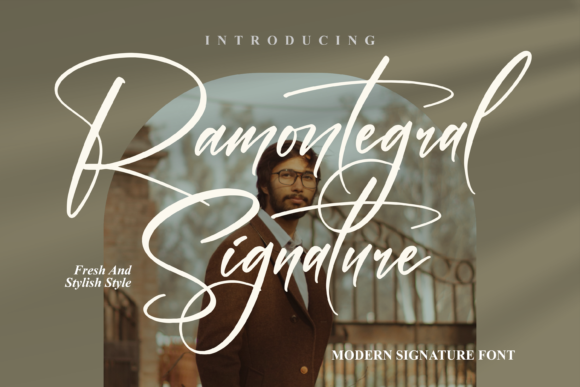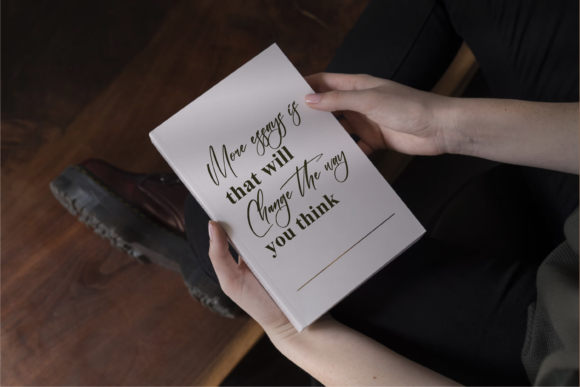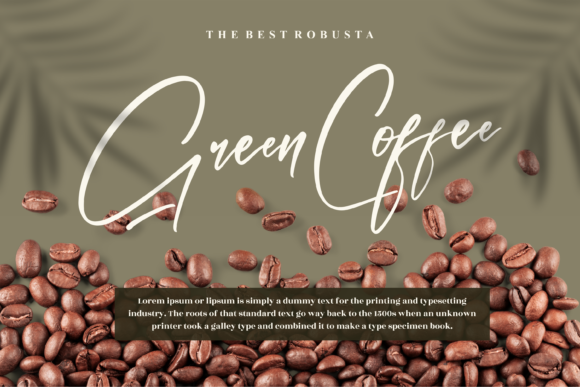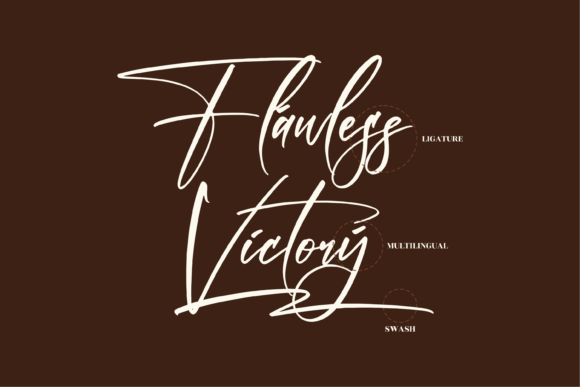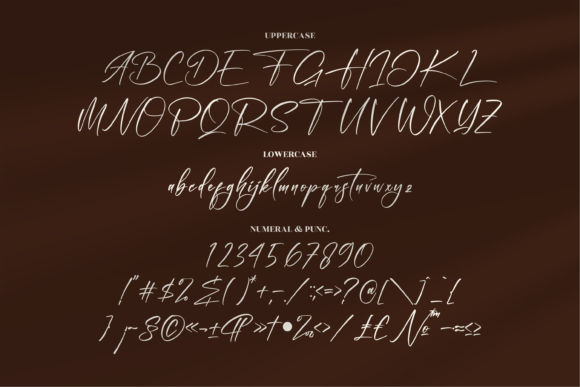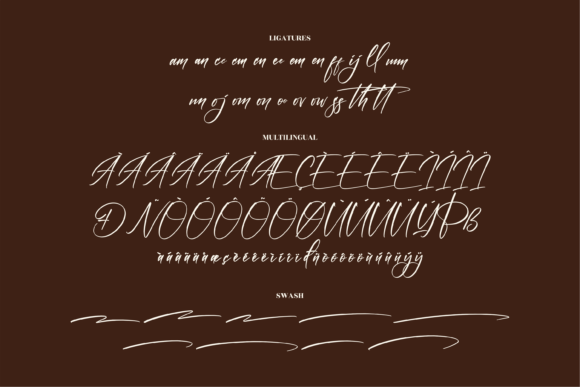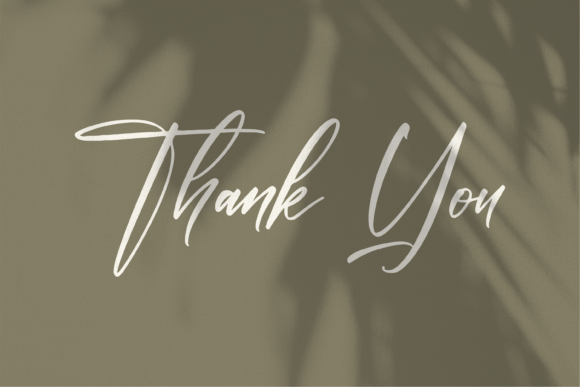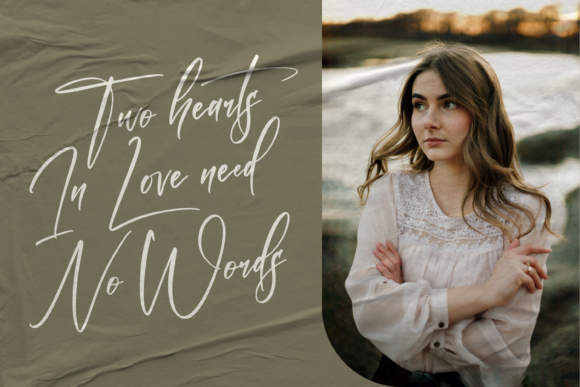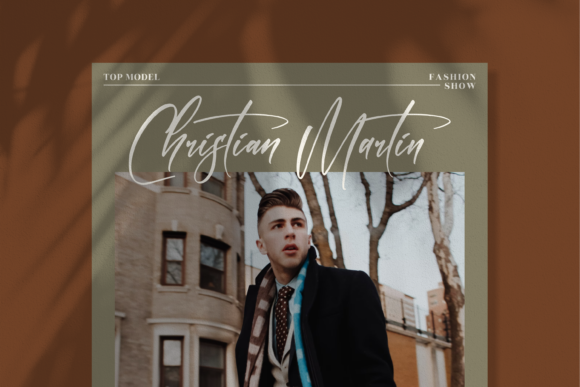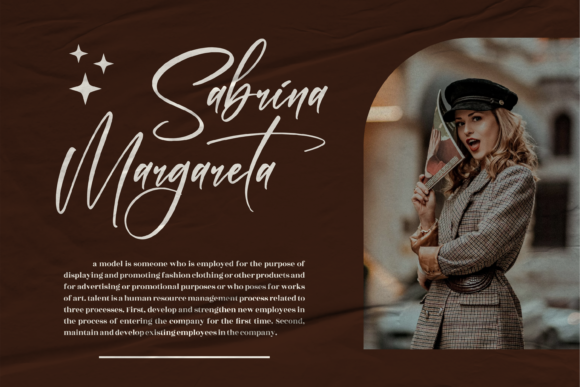
Ramontegral Signature Font
About Ramontegral Signature Font
Ramontegral Signature is a magical script font carefully created with a touch of elegance. This font is PUA encoded which means you can access all of the glyphs and swashes with ease!